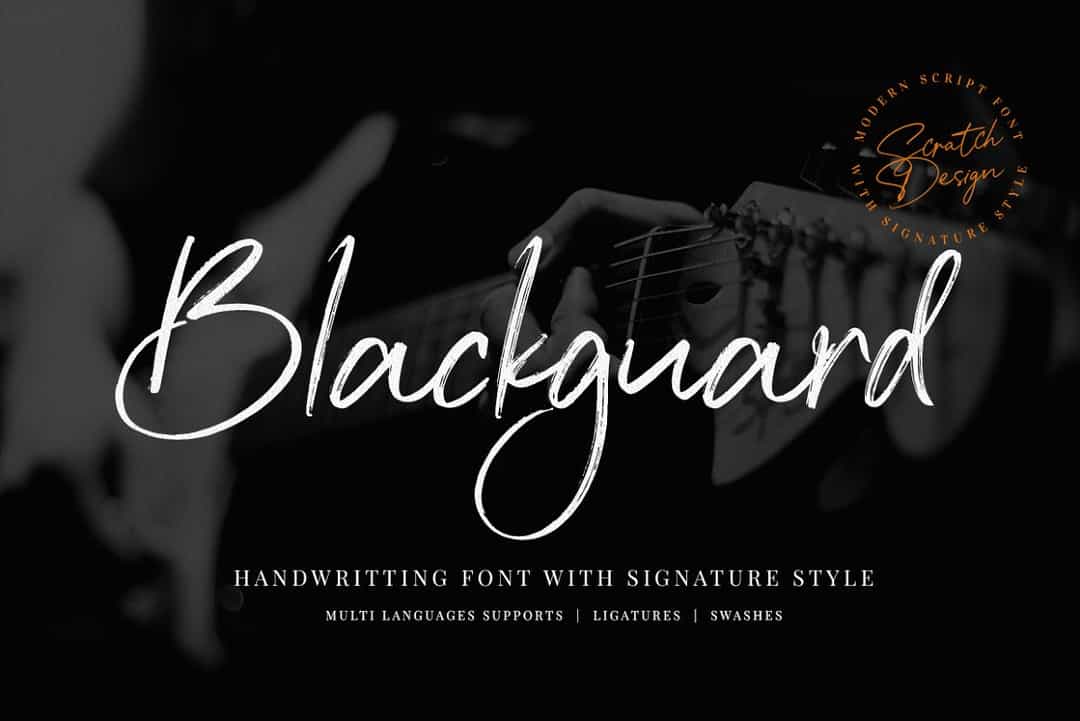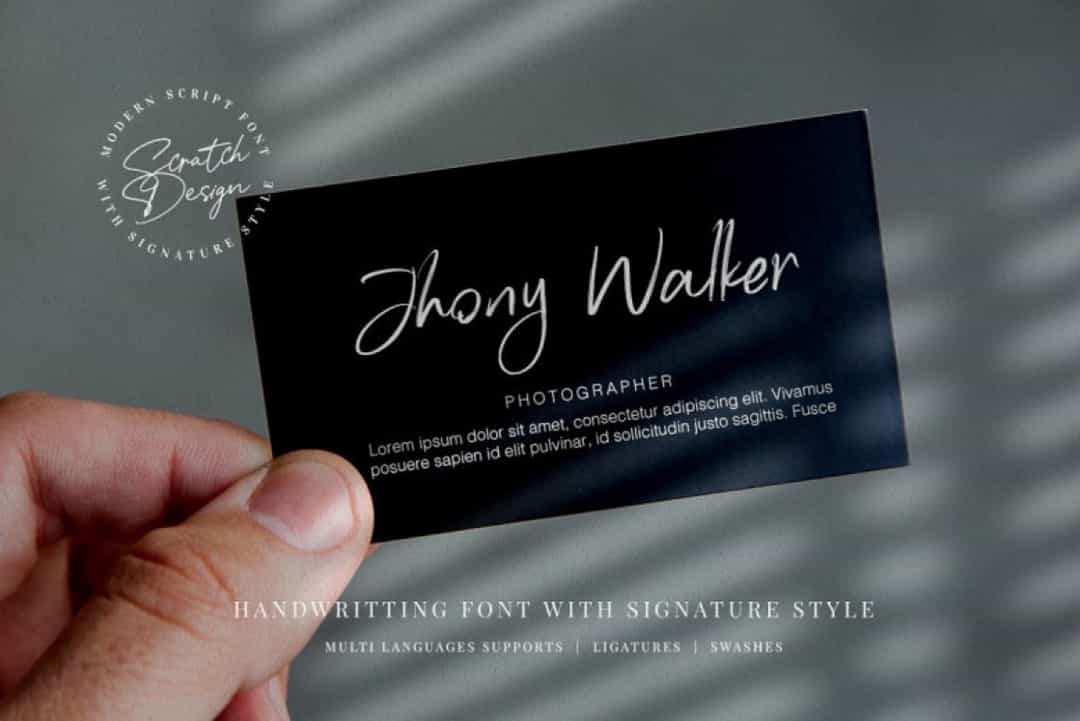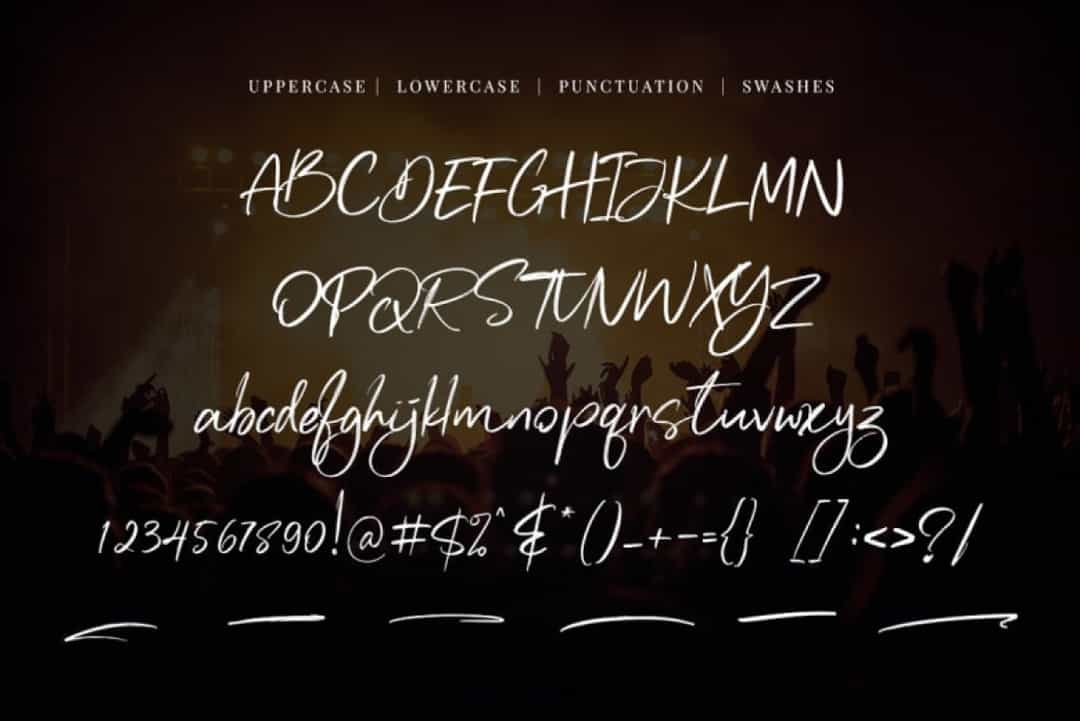
Blackguard is a stunning contemporary handwriting brush with its own distinct style. Using its signature natural and casual feel thanks to the textured brush used for writing it makes this font appear authentic yet still easily readable and versatile – ideal for use against vibrant backgrounds as a headline, or in minimalist settings as an eye-catching headline! Blackguard makes for stunning design elements for any type of design!